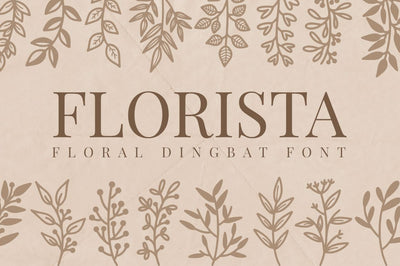
Florista - a floral dingbat font
florista is a dingbat font that contains glyphs of various forms of beautiful leaves and flowers. glyphs made by real hand drawing. This multi-purpose font can be used for logos, invitations, fabric patterns, t-shirts, weddings and much more.